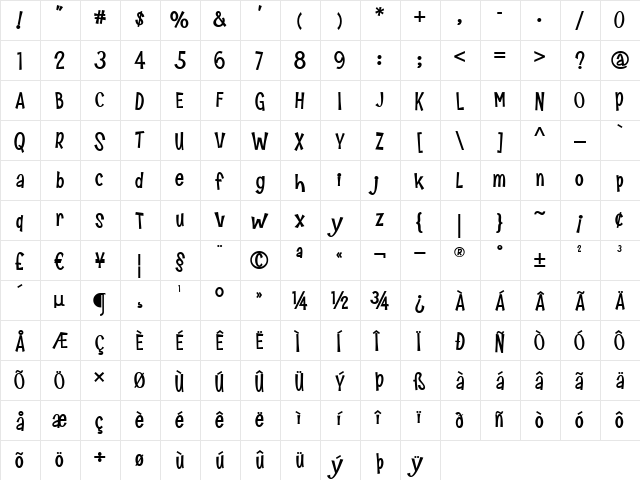
Snoopy Snails NF Regular
Design Context for Snoopy Snails NF Typeface
Snoopy Snails NF is a composed and adaptable typeface that performs quietly and consistently across a wide range of design contexts.
Pro Tip: Use Snoopy Snails NF in both headline and body roles to test its range before committing to a single application.